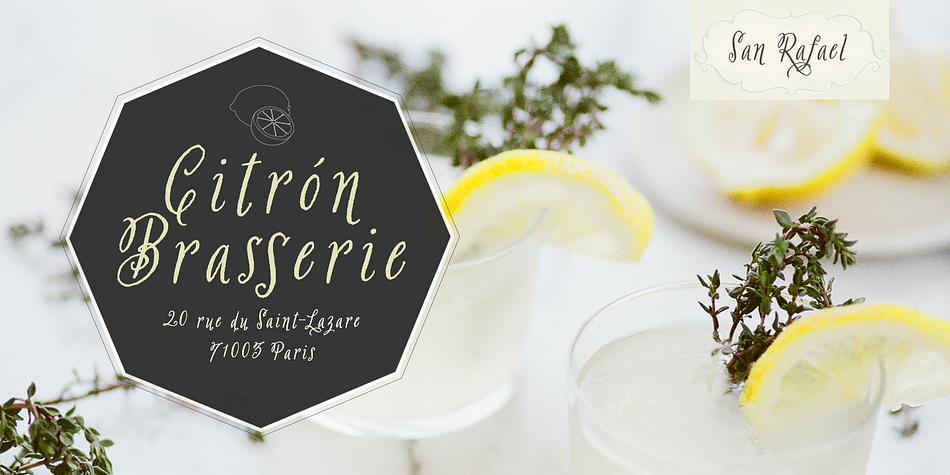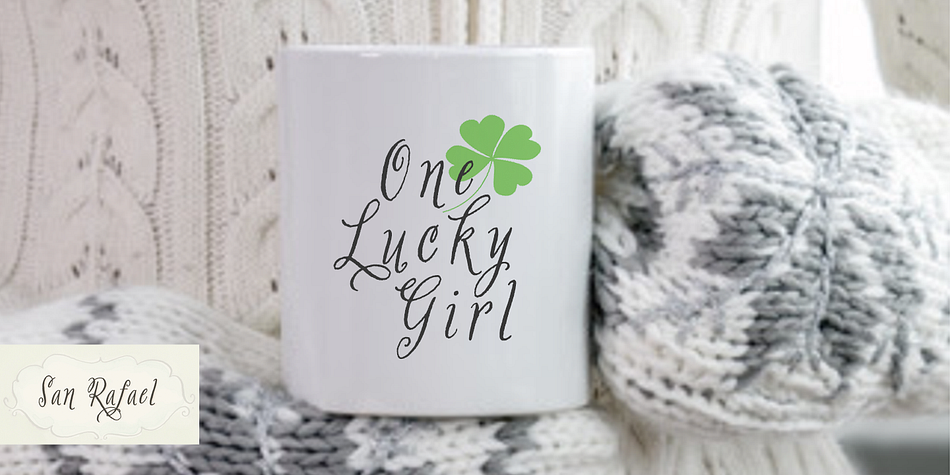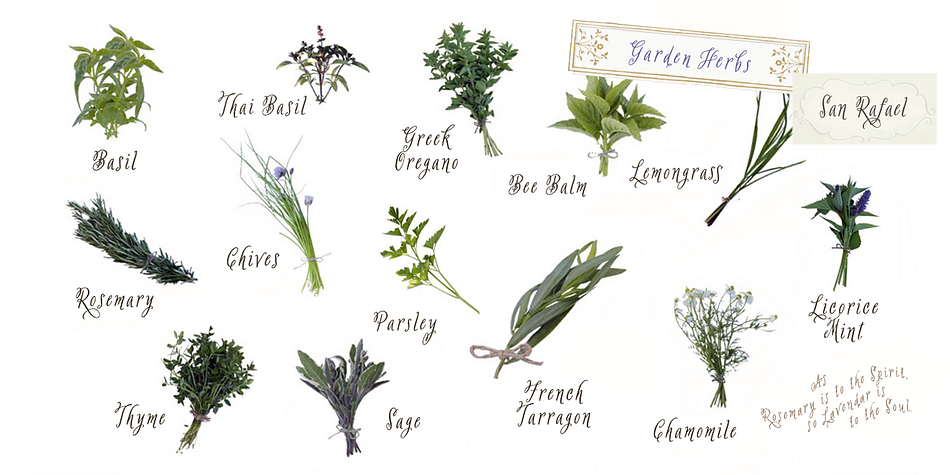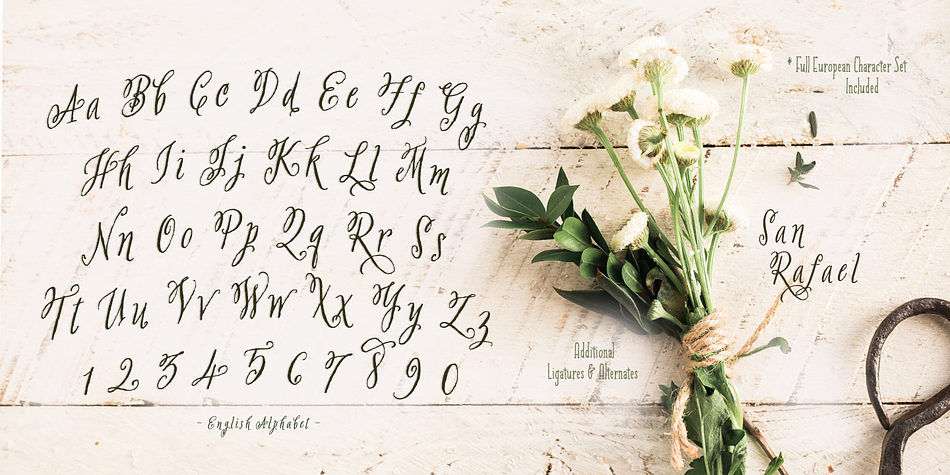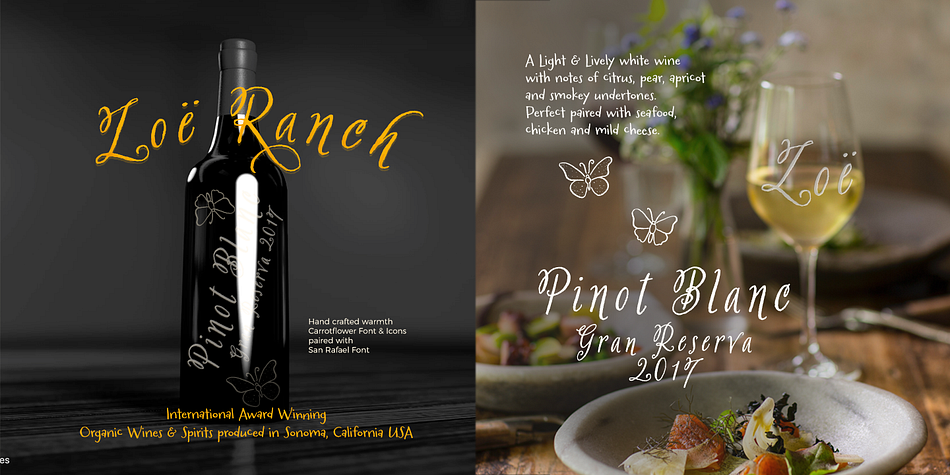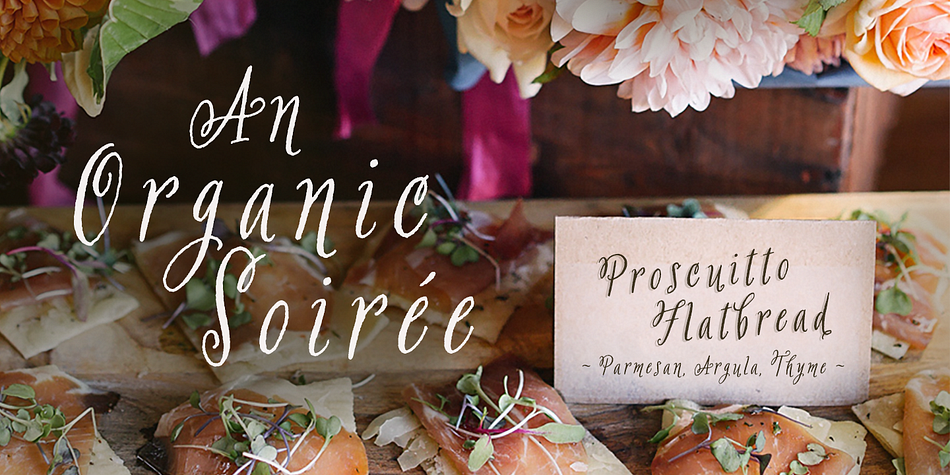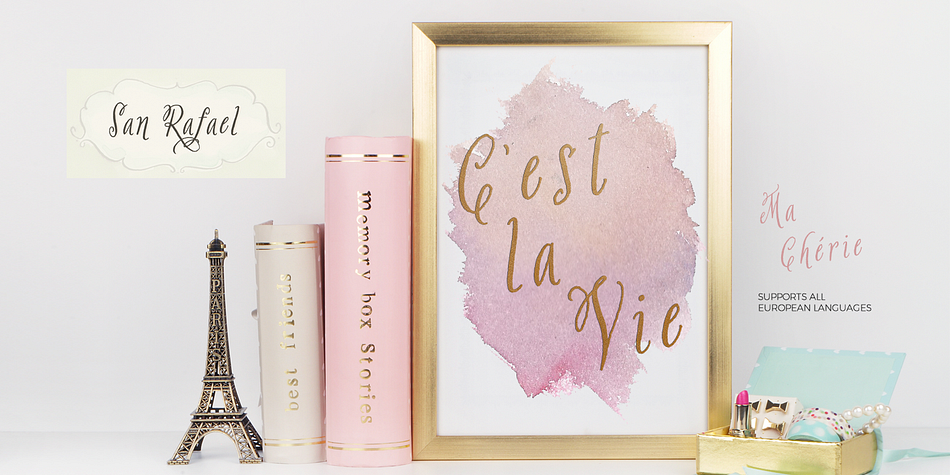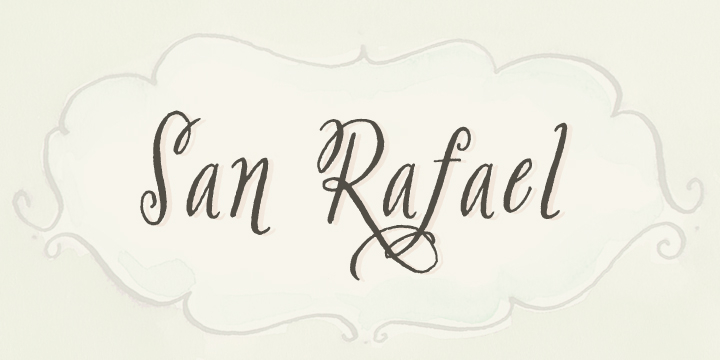
Designed by Stuart Sandler and Crystal Kluge, San Rafael is a script font published by Tart Workshop.
San Rafael
Afternoons in the forest. Day trips to wine country. Toasting to love, peace & hope with good friends. Dungeness crab fresh off the boat. San Rafael lives the good life!
A flirty, sweet hand lettered font, San Rafael strikes just the right balance between sophisticated and casual. San Rafael Mission is perfect when you desire a more generous open breezy feel. San Rafael has a lovely collection of alternative glyphs & ligatures accessible in any OpenType aware application. Perfect for packaging, logotypes, book titles, gifts & stationery goods.